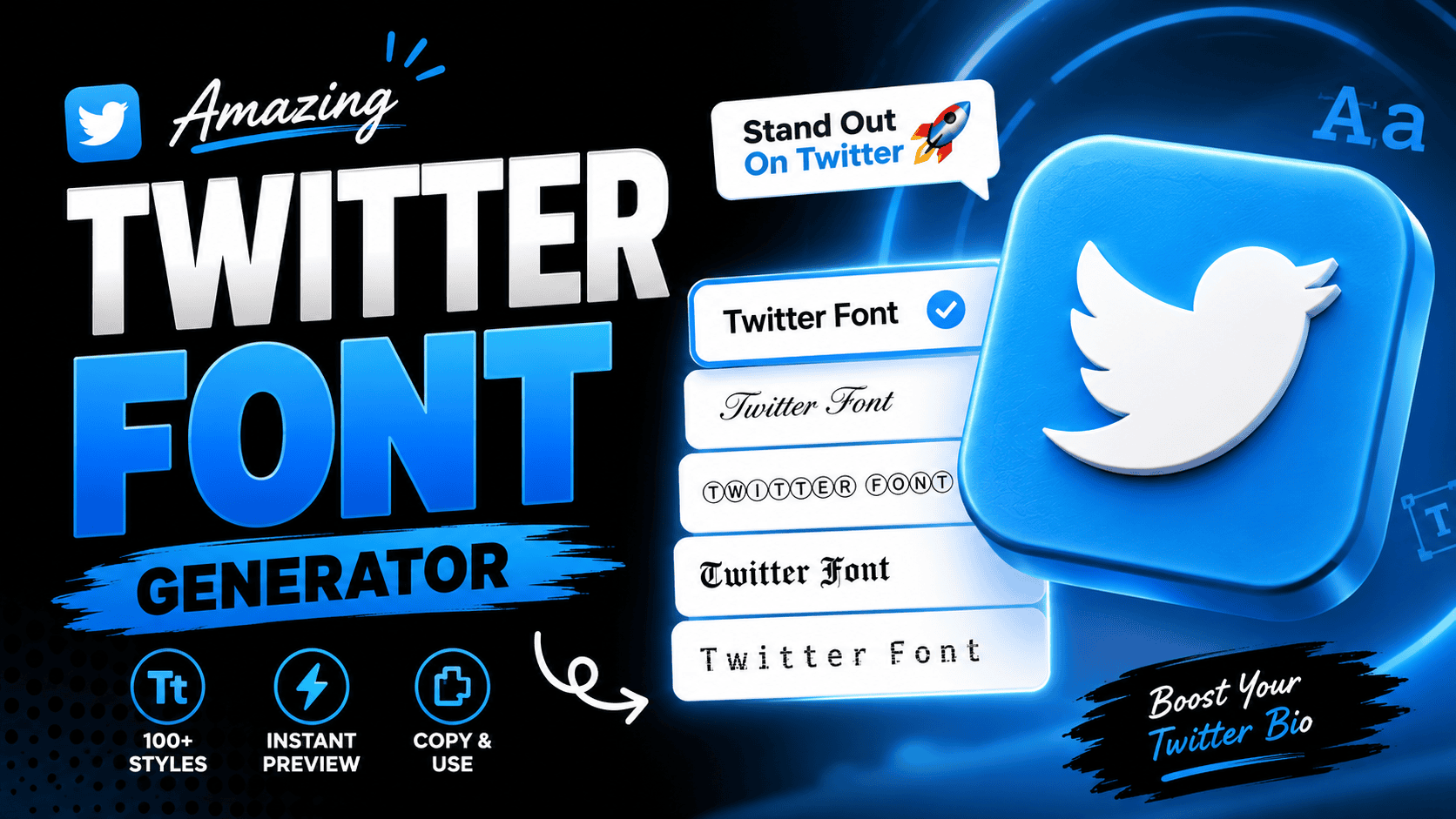
Twitter Font Generator
Before typography trends dominated Twitter, a font generator converts regular text into Unicode-based styled text, giving tweets an eye-catching, distinctive quality that elevates creative content beyond ordinary posts on any digital platform with remarkable ease.
What most creators overlook is how Unicode characters, universally appealing across browsers, apps, and direct messages, make styled text a toolkit to boost presence on platforms without installing anything, adding instant charm to profile bios.
What Is a Twitter Font Generator
A font generator for Twitter is a free web tool that transforms plain text into stylized cool fonts with no downloads or install ever required, producing fancy text instantly for your social posts anywhere online.
Unlike Chirp — Twitter’s own typeface — these font styles use Unicode characters for stylistic variety. Type into the first box, let the font generator convert normal text into eye-catching outputs for bios or your display name.
How Twitter Fonts Actually Work
Twitter doesn’t support custom font styles natively. Font generators exploit Unicode styled characters to simulate style shifts, with each Unicode character mapped to a glyph that modern browsers and smartphones may appear to render uniquely.
What truly makes this technique work is the operating system’s glyph rendering. If a device lacks support for specific glyphs, the fallback font quietly kicks in — making different fonts appear broken, outdated, or completely blank.
How to Use the Twitter Font Generator
Users transform their normal text by inputting words into a simple tool. This generator replaces every letter with a unique code, allowing dozens of designs to elevate your social media profiles instantly, making page special.
Simply copy the result and paste it to level up your timeline. Whether you craft a captivating username or subtle shifts in tweets, these Unicode styles ensure your message stands out everywhere, modifying plain interface.
Quick Copy Twitter Font Examples
Achieving visually distinctive thread titles requires a font changer that simplifies formatting. Users often copy different fonts to generate bold statements or styled letters. This versatility allows gaming profiles to attract attention instantly using modern.
Enhancing a Twitter profile through script or gothic lettering transforms minimal usernames into aesthetic art. Simply paste combinations of symbols and character styles from the generator box into bio and posts for creative digital results.
Popular Twitter Font Styles
Modern Unicode styling offers visually similar results to classic typeface layouts. Whether choosing Aesthetic curves or Gothic scripts, the Twitter font remains legible. These fancy font effects use a specific Unicode character to highlight style.
Since the 2021 design update moved to Chirp, many users pasted Normal text into Small Caps or Strikethrough. Use an underline for emphasis, ensuring your personality shines through within diverse gaming communities and various platforms.
Best Places to Use Stylish Twitter Fonts
Strategic edits on a username demand impressive visuals. Using playful fonts for personal profiles helps moods shift instantly. I found that decorative elements succeed when stylized text fits your unique tone perfectly without mixing styles.
Avoid overusing scripts in long sentences to maintain readability. For professional accounts, keep moderation as your vision. Your list of variations should prioritize a softer aesthetic while elevating your brand across many supported digital networks.
Tips for Using Fancy Fonts on Twitter
Integrating stylized characters requires caution because systems interpret Unicode standard markers differently. Always test how a Tweet looks across Chrome, Safari, and Firefox to ensure your profile section remains readable for every internet user accessibility.
When replying, avoid multiple decorative font style choices that clutter the app interface. Always browse through stylized fonts to select Small Caps for emphasis while updating your Twitter/X bios for better online identity. Check all steps.
Why Some Twitter Fonts Look Different On Certain Devices
Your browser interprets unique Unicode characters differently across desktops. While 302+ styles exist, older devices lack the integral system to render thousands of writing systems. This causes a messy glitch instead of custom-styled mobile screens.
When drafting content on Windows, a Mac might display boxes. Since font generators use mathematical computing, ensuring a seamless experience requires checking if complex symbols are compatible or difficult to read for common active users.
Do You Need To Download Twitter Fonts?
Modern web devices allow accessing a wide range of styles without software. Simply navigate your input field and see how a Twitter changer resonates instantly. No installation is required for any normal Tweet text word.Use a keyboardshortcut like Ctrl+V to copy-paste unique characters into your Profile. This quickScript functions across tablets or Facebook, storing no sensitive data or private account info while sharing those importantwords globally.
Why Do Some Fonts Look Different On Different Devices?
Operating systems interpret unique Unicode mappings inconsistently, causing visual fragmentation across platforms. Older hardware lacks updated glyph libraries, transforming stylish characters into blank squares. I have observed that character rendering depends entirely on local support.